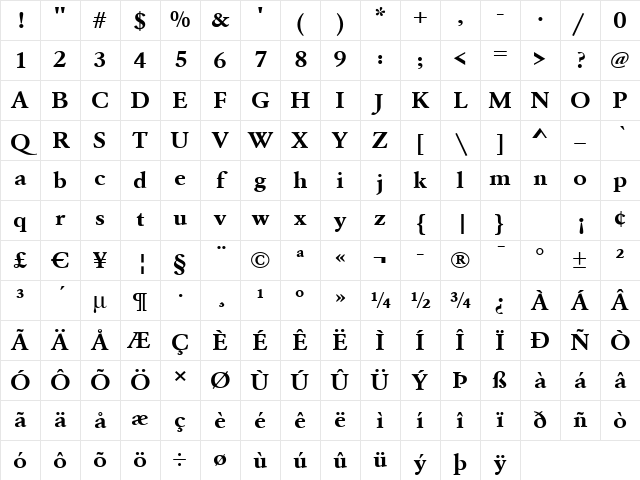
LionelBeckerExtended Bold
Design Context for LionelBeckerExtended
LionelBeckerExtended is a composed and adaptable typeface that performs quietly and consistently across a wide range of design contexts. Its bold stroke weight gives it real presence on the page.